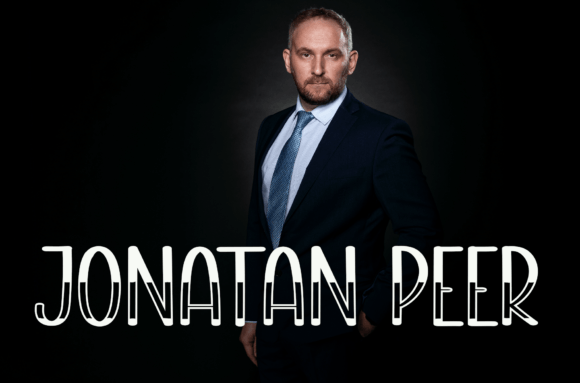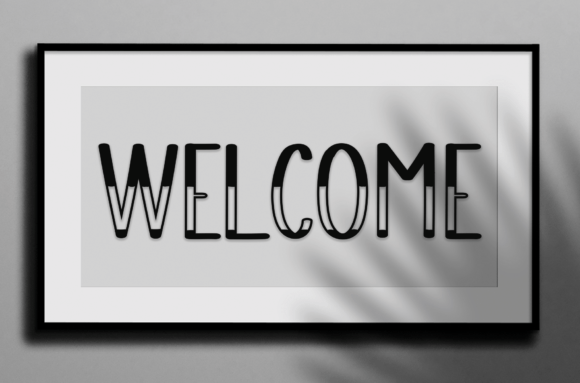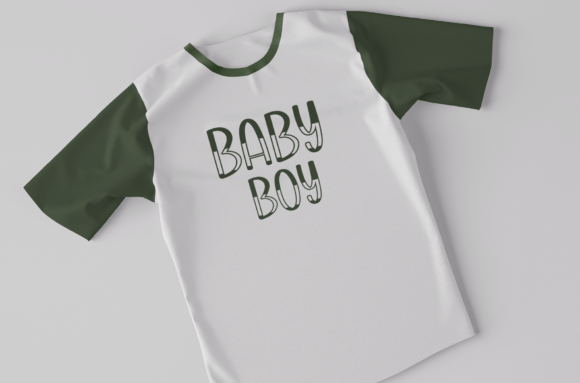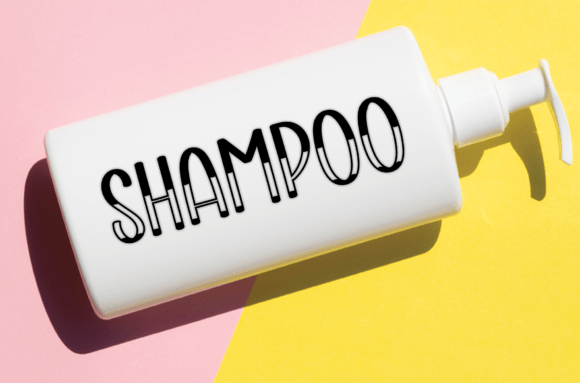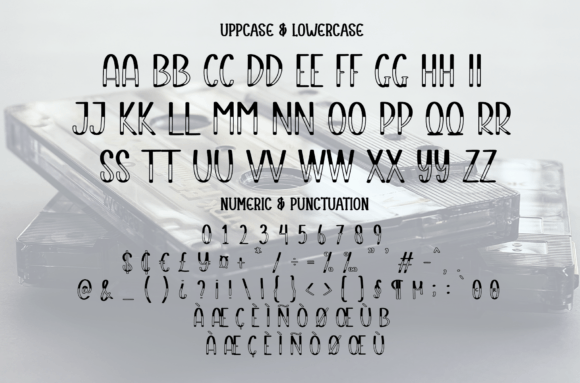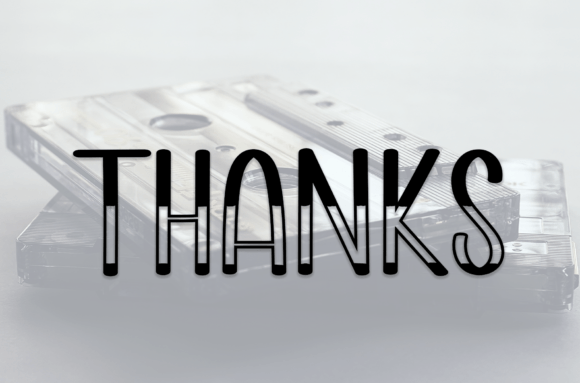
Introduction to Memory Font
Memory is a cool and modern display font.
Whether you’re using it for crafts, digital design, presentations, or making greeting cards, this font has the potential to become your favorite go-to font, no matter the occasion .
Key Features of Memory Font